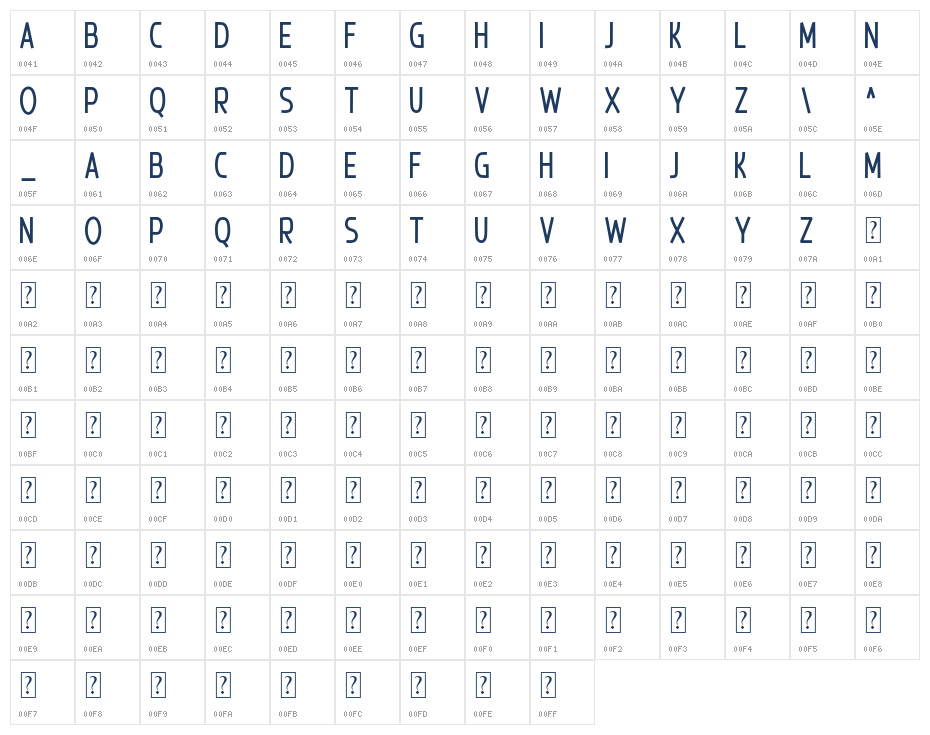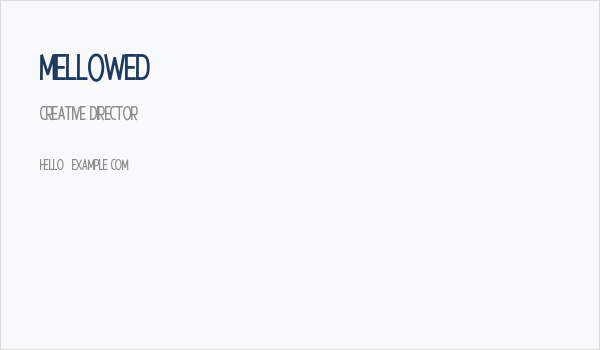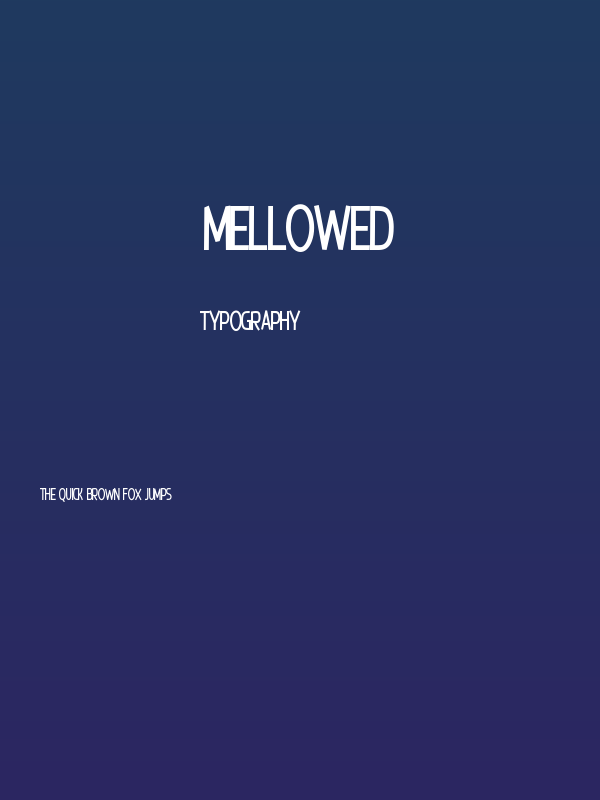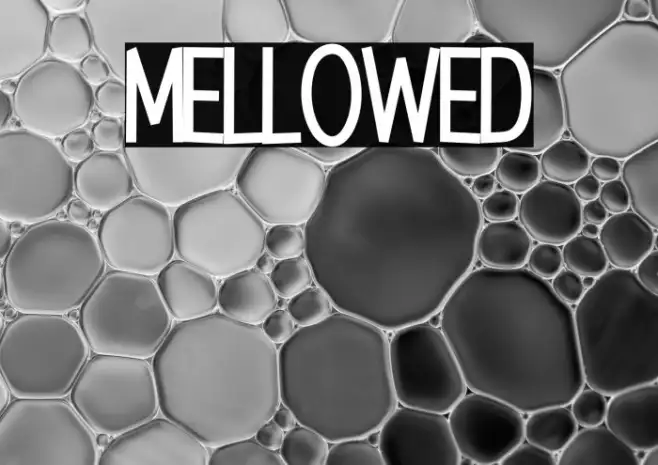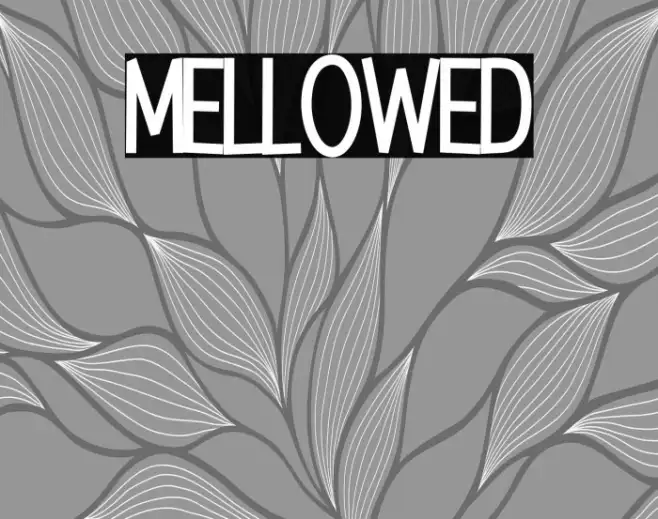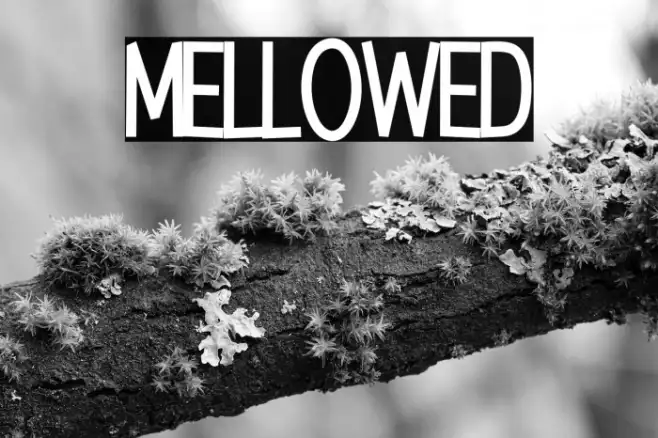
Mellowed Font
Mellowed Description
A playful, irregular sans-serif font with a hand-drawn appearance, featuring varying stroke widths and slightly tilted characters.
| Overall Style | Playful, Hand-drawn, Casual |
| Use Case | Headlines, Posters, Creative branding |